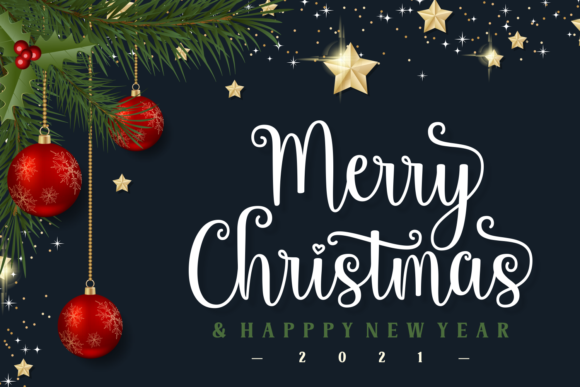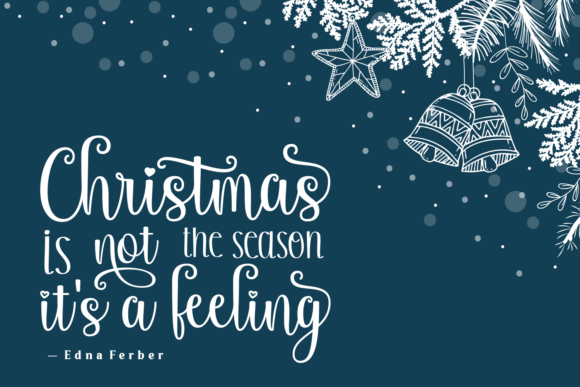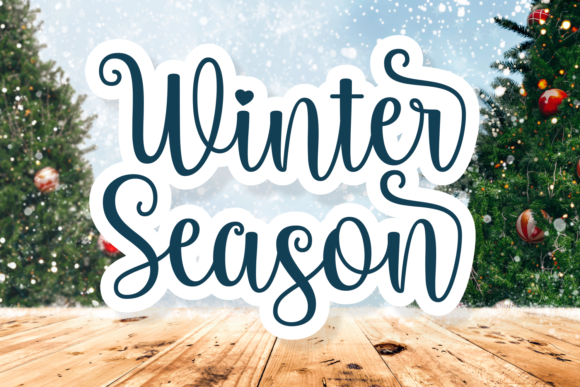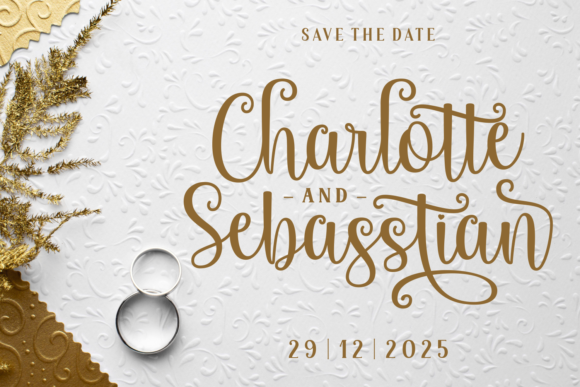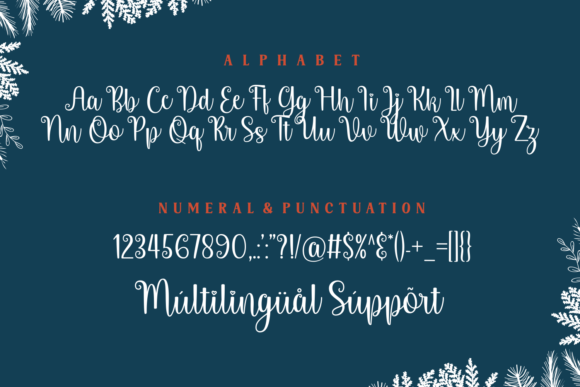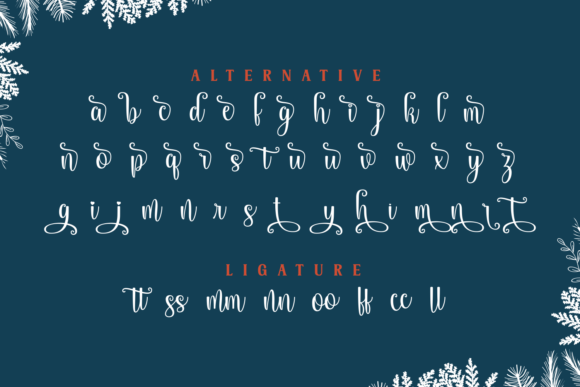
The Magic of Christmas Memory Font: A Designer’s Delight
Ah, the holiday season is upon us, and as designers, we’re often tasked with creating festive and captivating projects that evoke the spirit of Christmas. I recall a particularly stressful design session last year, where I was working on a client’s Christmas card campaign, and I just couldn’t seem to find the perfect font. That was until I stumbled upon the enchanting Christmas Memory Font! ✨
This handwritten font has been a game-changer for me, and I’m excited to share my experience with you. In this article, we’ll dive into the world of Christmas Memory Font, exploring its features, and how to make the most of it in various design platforms.
• ✨ Luxurious feel: Christmas Memory Font adds a touch of sophistication and elegance to any design project.
• ✅ PUA encoded: This means you can easily access all the amazing glyphs and ligatures, making it a breeze to create stunning text arrangements.
• 🎉 Festive and fun: The font’s playful, handwritten style is perfect for holiday-themed projects, from Christmas cards to decorations.
A Few Quirks to Keep in Mind
While Christmas Memory Font is an excellent choice, there are a few things to be aware of:
• ⚠️ Glyph overload: With so many glyphs and ligatures available, it’s easy to get carried away. Make sure to balance your design to avoid overwhelming the viewer.
• 🤔 Legibility at small sizes: As with many script fonts, Christmas Memory can become tricky to read at very small sizes. Be mindful of font size and adjust accordingly.
The Story Behind Christmas Memory Font
Imagine a snowy evening, sitting by the fireplace, surrounded by old family photographs and Christmas decorations. This was the inspiration behind Christmas Memory Font. The designer, fueled by hot cocoa and holiday cheer, crafted a font that captures the essence of cherished winter memories.